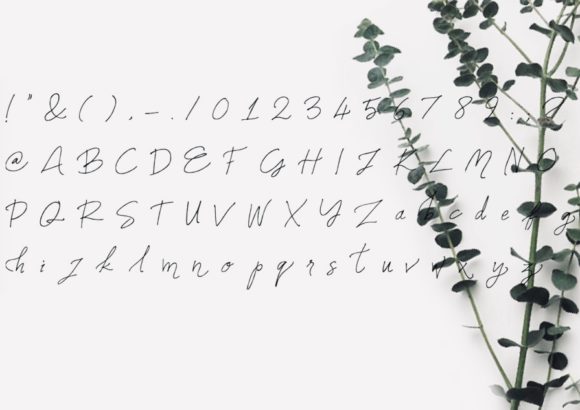
Introduction to Names Font
Have you ever stared at a blank page, trying to decide on the perfect font to match your creative vision? For designers, this moment can be both thrilling and intimidating. It’s the moment when you know you’re about to bring your idea to life, but you’re not sure where to start. This is where Names Font comes in – a simple, yet elegant handwritten font that can add a level of authenticity to any design project.
As a valuable design resource, Names Font offers a high-quality, contemporary feel that can elevate your work to the next level. With its versatility and ease of use, it’s perfect for designers who want to add a personal touch to their projects without sacrificing professionalism. Whether you’re working on a design project with a transparent background or a free download, Names Font is sure to make a lasting impression.
- Font size: 256 glyphs, covering a wide range of characters and languages.
- Perfect for use in logos, typography, and other design elements where a unique and elegant font is required.
Honest Review: Names Font
I recently had the chance to work with Names Font, and I must say it’s a solid addition to any designer’s toolkit. As a design resource, it’s perfect for creative projects where a high-quality font can make all the difference.
What works well: ✨ Names Font has a clean, modern aesthetic that’s perfect for a wide range of applications. The font is highly customizable, and the transparent background option makes it easy to work with.
Overall impression: I’m really impressed with Names Font. It’s a great choice for anyone looking for a high-quality, versatile font that’s perfect for creative projects. With a little patience and experimentation, you can achieve some truly amazing results.
Use the Names Font for creative projects such as logos, invitations, and social media graphics. Experiment with different font sizes, colors, and combinations to achieve unique and eye-catching designs.
The Names Font is ideal for: personal branding, event invitations, social media posts, and any other project where a high-quality, creative font is needed.